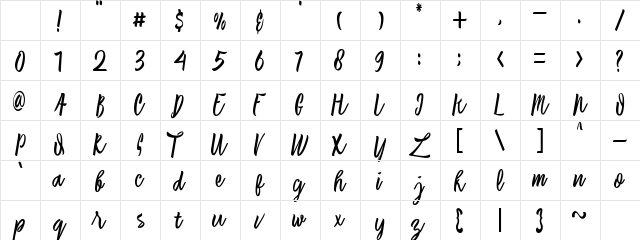
Complete Laksana Typeface Italic glyph index. Displaying only characters natively supported by Laksana Typeface Italic font.
Laksana Typeface is a composed and adaptable typeface that performs quietly and consistently across a wide range of design contexts. The slanted form adds forward momentum and visual energy.
Pro Tip: Use Laksana Typeface for emphasis, pull quotes, and subheadings where its slanted energy can add rhythm to the layout.